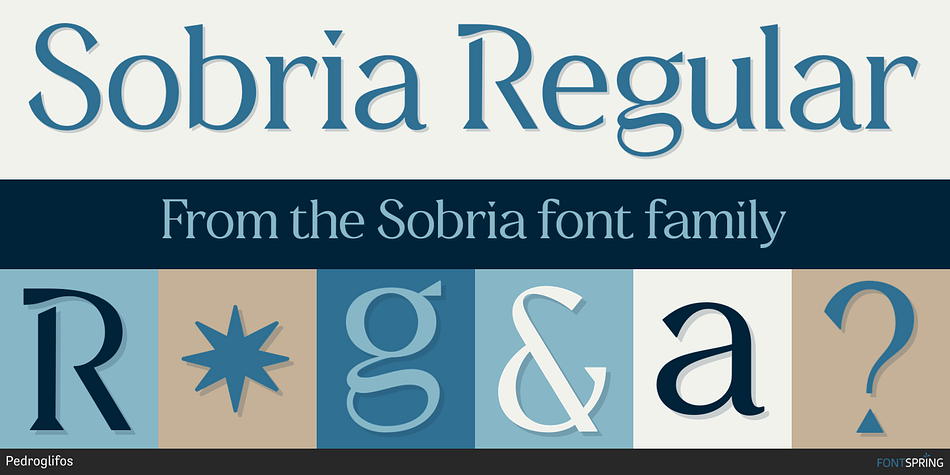
Sobria Regular
Sobria is an art nouveau, display serif and serif font family. This typeface has eight styles and was published by Pedroglifos.
Sobria is the steady and more grounded counterpart of Deliria. Poetic nonetheless, Sobria features the very same triangular serifs as its sibling, and its pointy terminals suggest finesse. The high contrast of its strokes evokes a sense of impervious calmness, making it hard to miss. Perhaps that’s why it will suit better for display purposes, and even for headings and headlines across media. On this very website, you may find headings set in Sobria — possibly, an older version of it. Another detail that one might find interesting about this glyphic typeface is the unapologetic decisions in some characters, like the curvy «g», the double-story «a» in its italics, and the disconnected stems in the «B, D, P, R» forms. If you’re looking for a serif that has both aura and subtlety, Sobria awaits.
Don’t forget to check out the Open Type features! There’s some alternate styles you don’t want to miss.